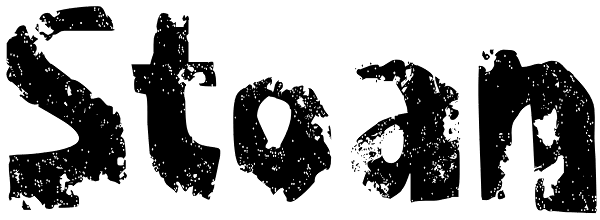
Stoan
Stoan is a rough, textured grunge font, based on the popular Spaza. Its characters are irregular and funky, with edges that disappear into the distance.